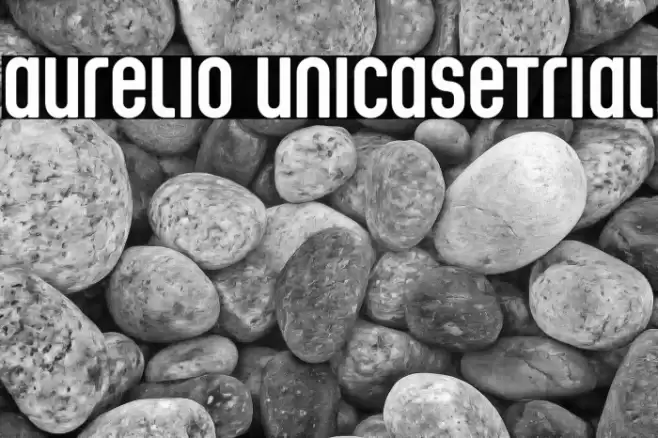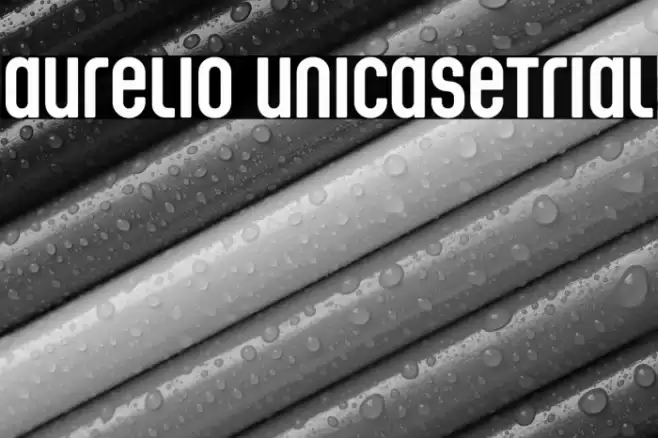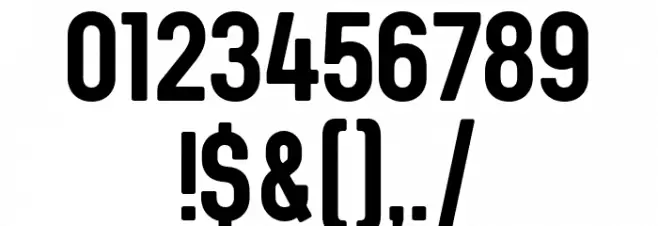
Aurelio Unicase_Trial Font
Aurelio Unicase_Trial Description
This font features a bold, modern design with a unique unicase style, where uppercase and lowercase letters share the same height, creating a uniform and cohesive look. The characters are rounded and have a geometric feel, contributing to a contemporary aesthetic. The font is highly legible, with clear distinctions between each character, making it suitable for various design applications. Its bold weight and consistent stroke width give it a strong presence, ideal for making impactful statements in headlines or logos. The spacing between characters is tight, enhancing its compact and efficient appearance.
A bold, modern unicase font with geometric, rounded characters from Regular fonts.
- Proposed Projects: Ideal for branding, advertising, headlines, and logo design due to its bold and modern appearance.
- Character Spacing: Tight